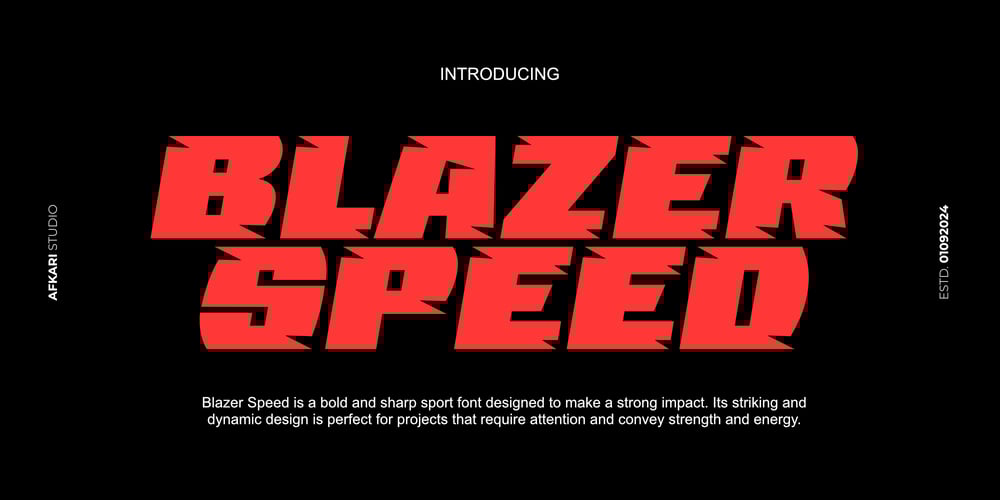
Blazer Speed Font Family was designed by Musthafa Kamal Emje and published by Afkari Studio. Blazer Speed contains 1 styles and family package options. Introducing Blazer Speed – Bold Sport & Racing Font. Blazer Speed is a high-octane typeface, expertly designed to embody the adrenaline and speed of the racing world. With its bold, dynamic structure, this font is set to ignite your creative projects, infusing them with a sense of motion and power.At its core, Blazer Speed captures the spirit of high-speed sports, reflecting the precision and intensity of competitive racing. Its strong lines and aggressive angles make it the perfect choice for a variety of graphic applications, ensuring it stands out across multiple platforms and mediums.Highlighted Features:- Complete Set: Includes uppercase letters, numerals, and essential punctuation marks.- Bold & Dynamic Design: Strong lines and sharp angles convey speed and power.- Cross-Platform Compatibility: Works flawlessly on both PC and Mac systems.- Effortless Installation: Quick and simple setup to start designing instantly.- Seamless Integration: Compatible with Adobe Illustrator, Adobe Photoshop, Adobe InDesign, and Microsoft Word.- Fully Accessible: No additional software required for use.- Multilingual Support: Contains characters for diverse languages, including ä, ö, ü, Ä, Ö, Ü, ß, ¿, and ¡.Blazer Speed goes beyond simple functionality; it becomes a symbol of speed and energy. Its adaptability allows it to seamlessly integrate into motorsport branding, dynamic posters, racing event flyers, high-performance apparel, and more.This font’s versatility is matched by its ability to inject a sense of thrill and momentum into every project it touches. Whether it’s amplifying the excitement of a racing event or adding a bold edge to athletic branding, Blaze Circuit brings a fierce, energetic presence that captivates and excites.In conclusion, Blazer Speed Bold Sport & Racing Font isn’t just a typeface; it’s a driving force of creativity, a bridge between the raw power of racing and modern design aesthetics. Embrace its energy, leverage its versatility, and let it propel your projects to the forefront of bold, dynamic design. Unleash the full potential of Blazer Speed, where each character roars with speed and every design races to the finish line of modern sports aesthetics.